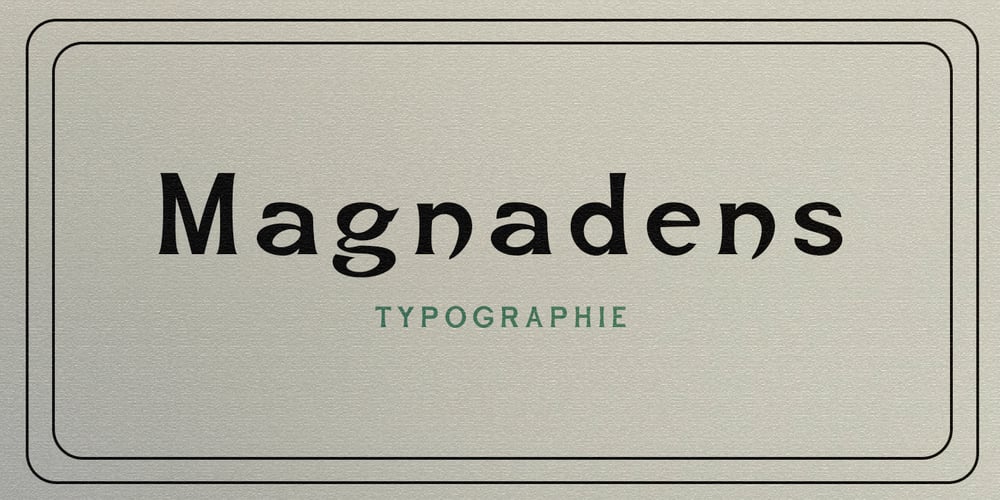
Magnadens
Magnadens font
Magnadens Font Family was designed by JC Mehring and published by JC Creation Design. Magnadens contains 1 styles and family package options. Magnadens is a typography with thick, stylish lines that can be particularly suitable for headlines, posters and logos.The main peculiarity of this typography are the slightly arched stems on the edges, which gives it a solid base while maintaining a certain elegance.Some glyphs like the “h” and the alternative “n” or “m” bring a medieval connotation while remaining modern.